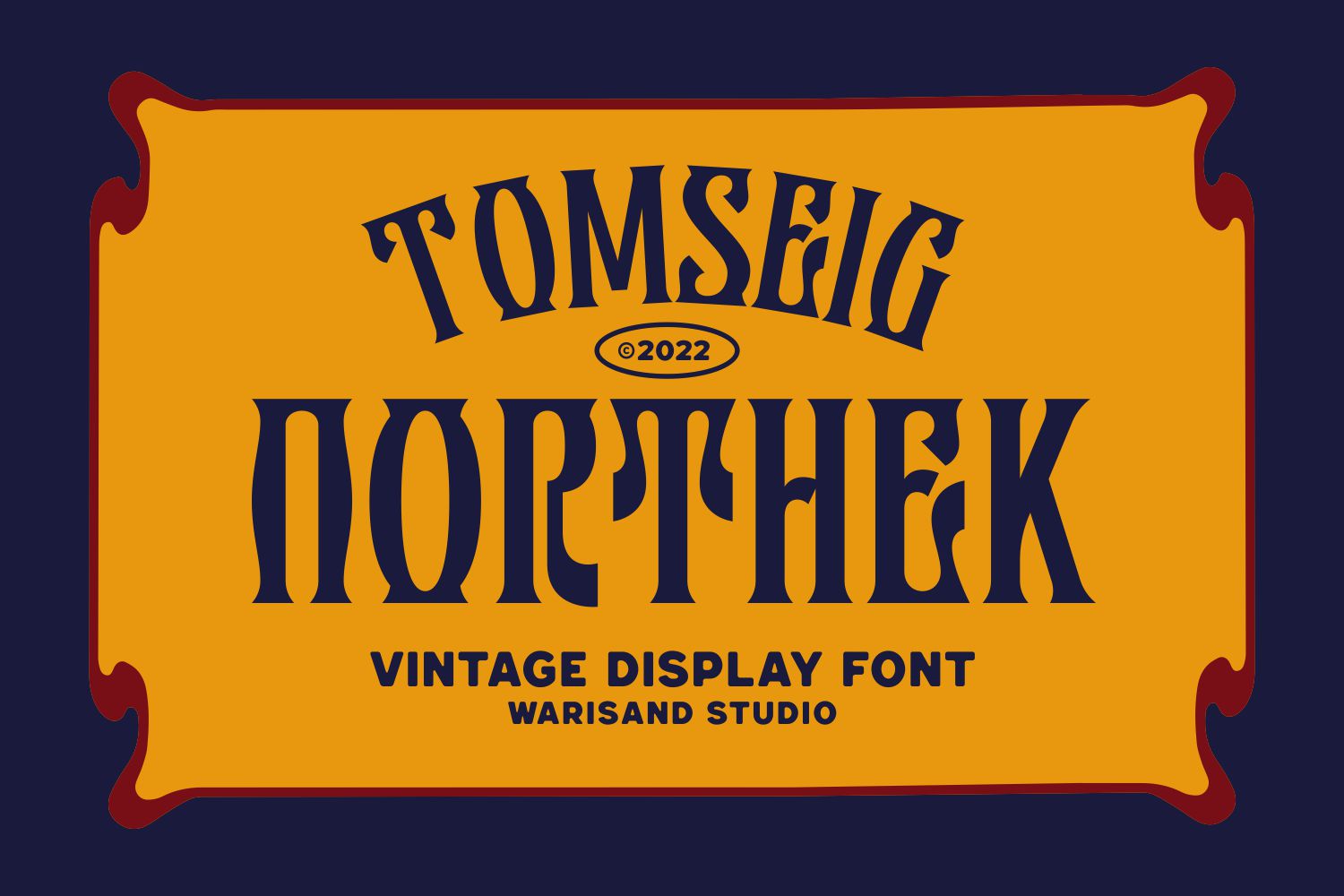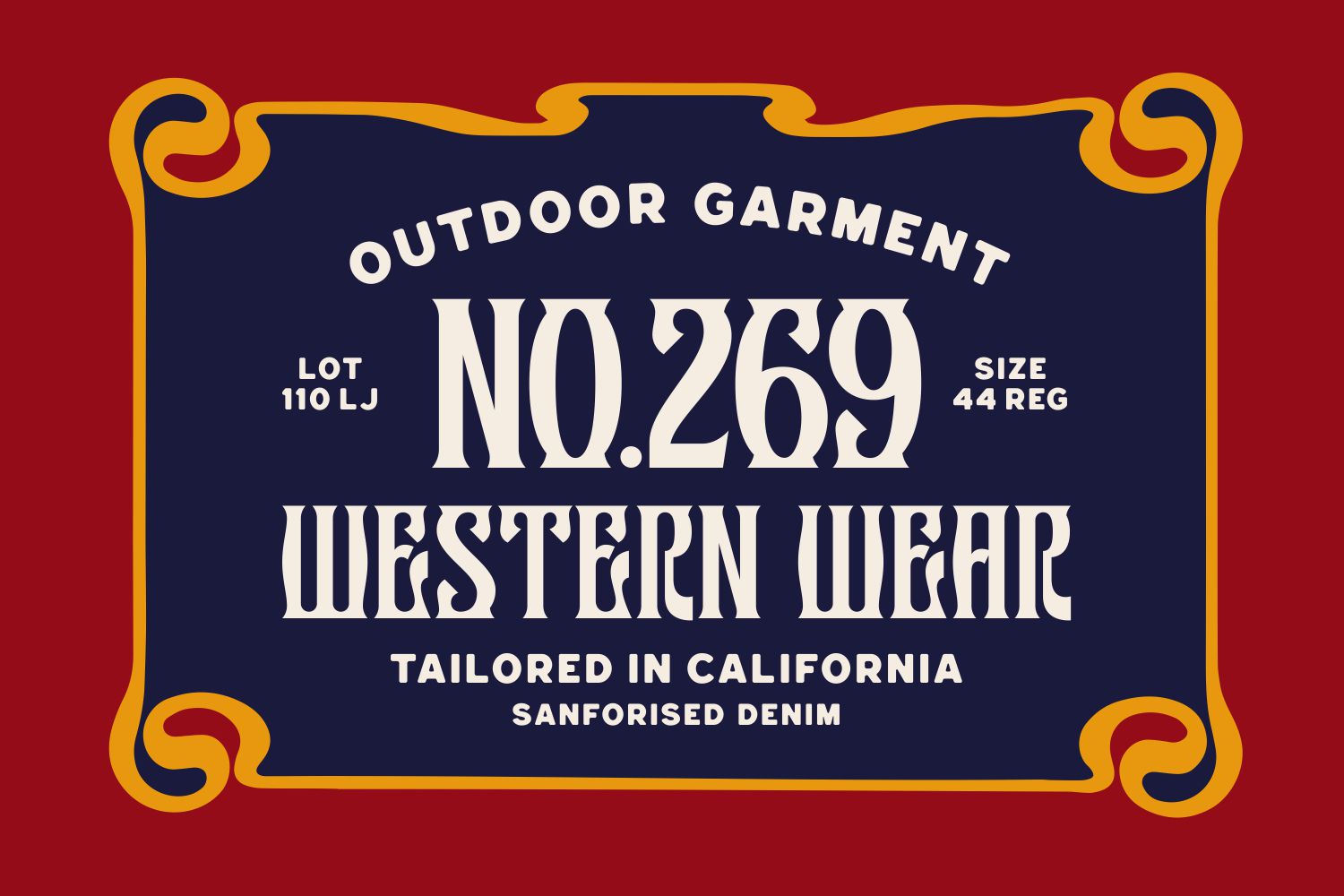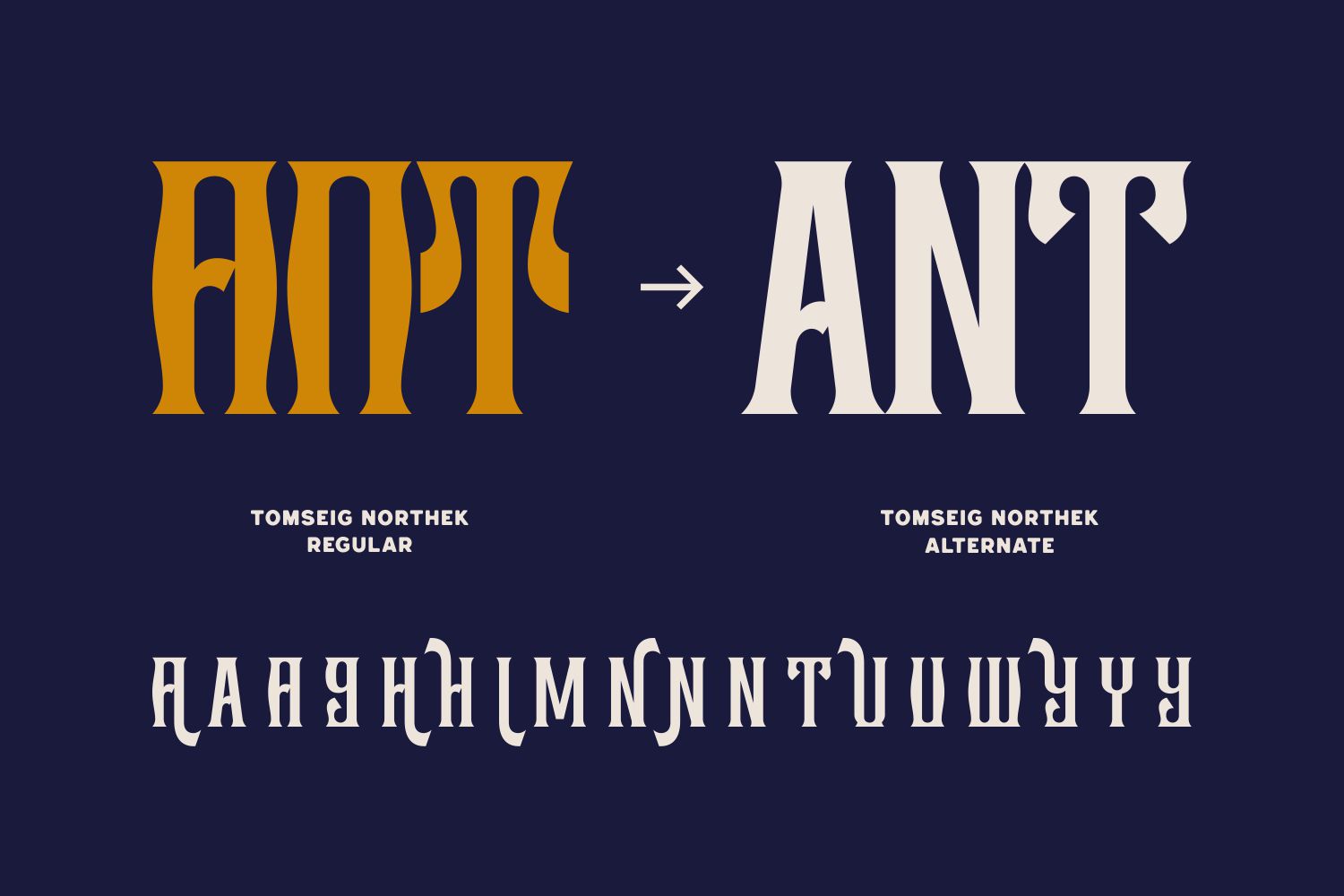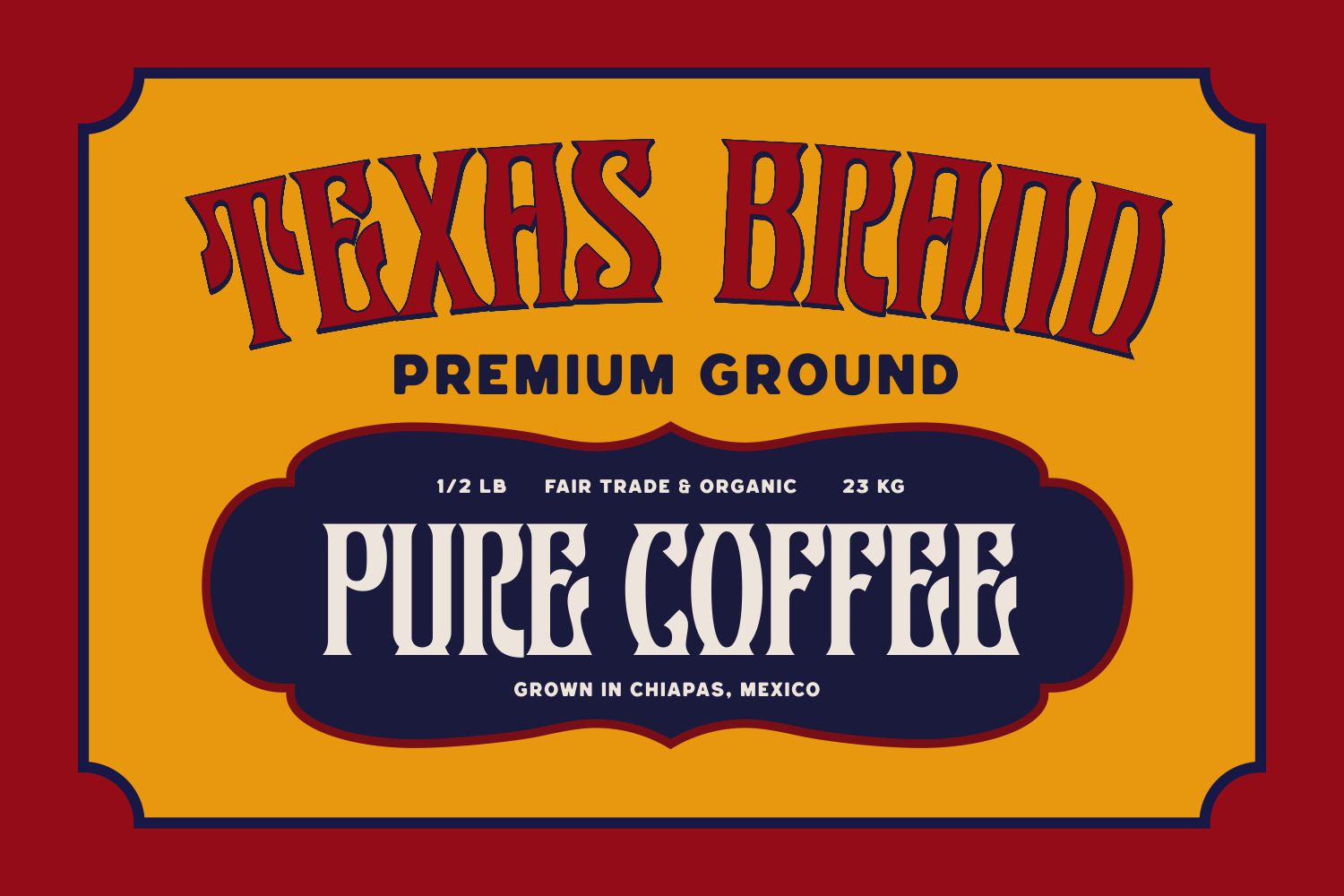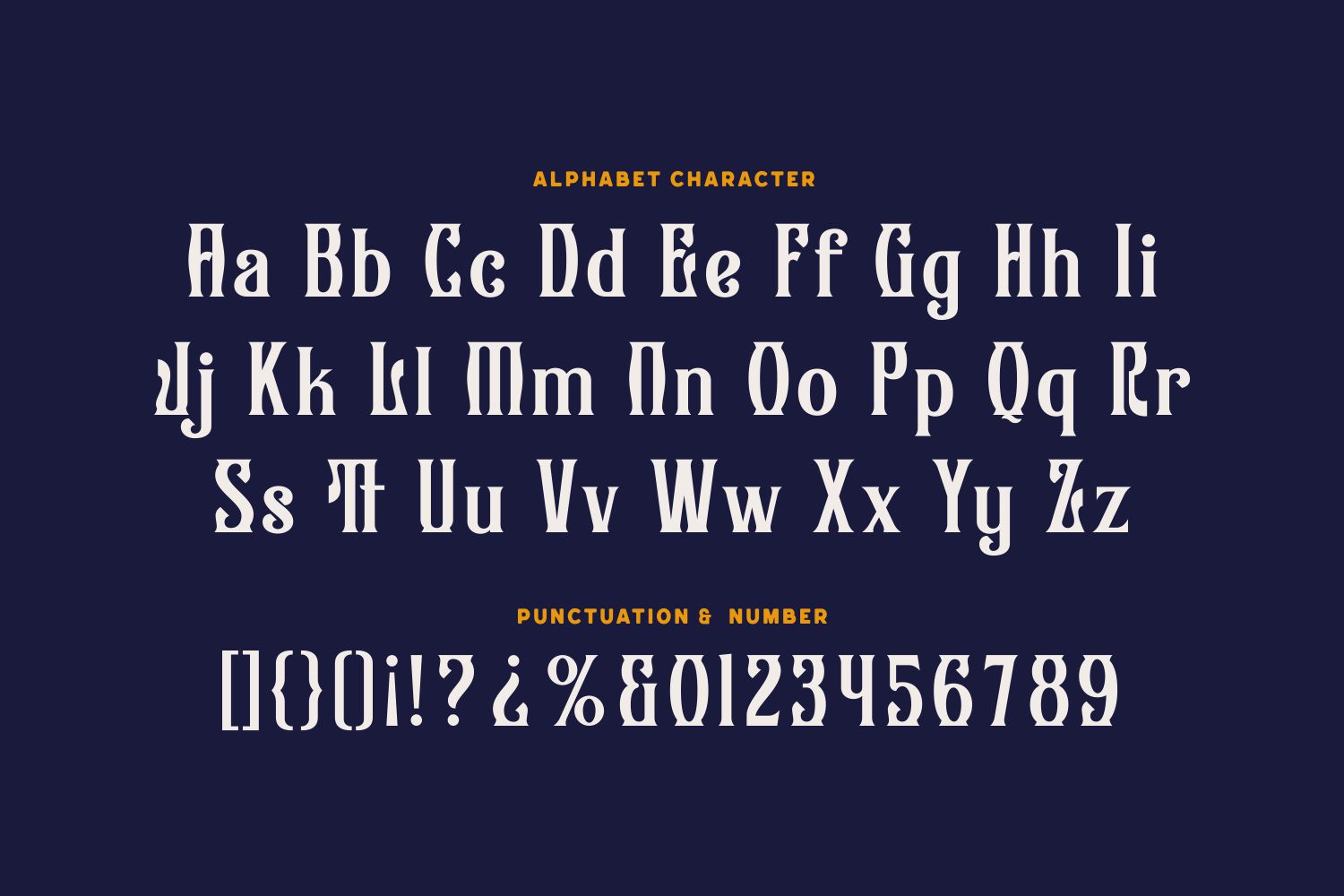
Tomseig Northek is a bold vintage display font inspired by old-fashioned western design, combining strong character with decorative flair. The font features unique cuts, sharp edges, and ornamental alternates that give it a distinctive appearance. It comes with uppercase and lowercase characters, numerals, punctuation, and a wide range of stylistic alternates, making it highly adaptable for vintage branding or standout headline work.
Perfect for western-themed projects, denim labels, whiskey packaging, or coffee branding, Tomseig Northek delivers a classic Americana vibe with modern usability. The font’s versatility and bold aesthetic make it a top choice for logotypes, signage, editorial layouts, and retro advertising visuals looking to evoke heritage and strength.